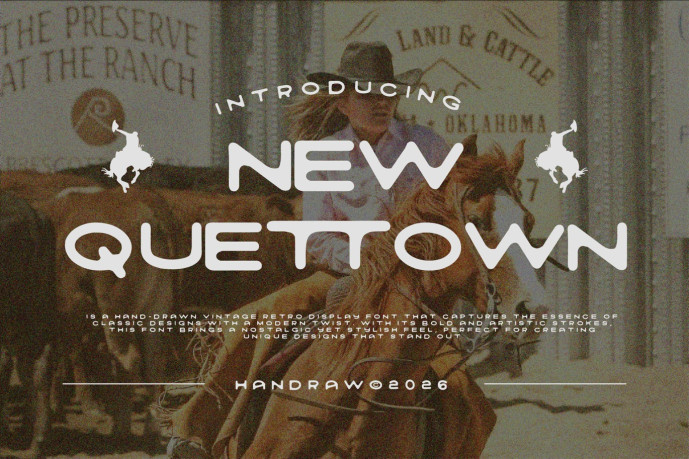
Quettown Font
Designer: Handraw
Quettown Font is a hand-drawn vintage retro display font that captures the essence of classic designs with a modern twist. With its bold and artistic strokes, this font brings a nostalgic yet stylish feel, perfect for creating unique designs that stand out. Whether you’re working on a retro-inspired logo, a vintage poster, or a creative branding project, Quettown adds personality and charm to your work.